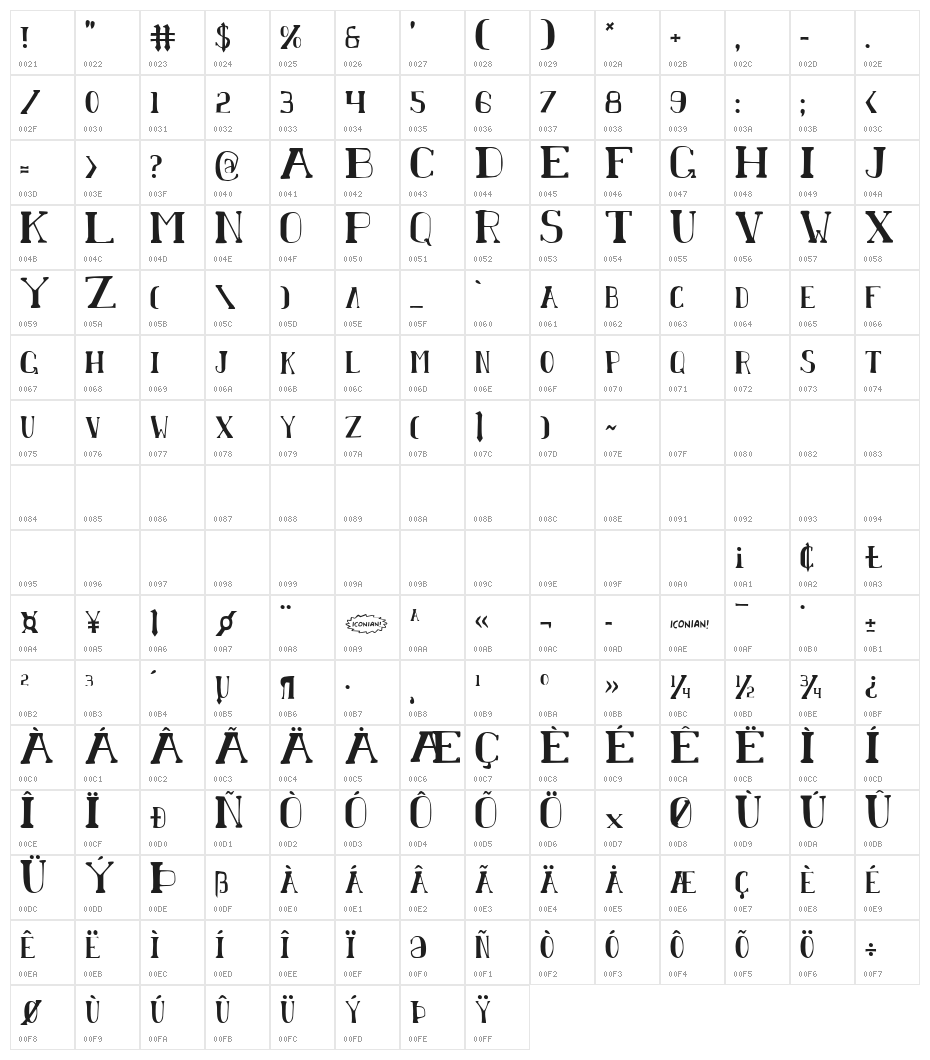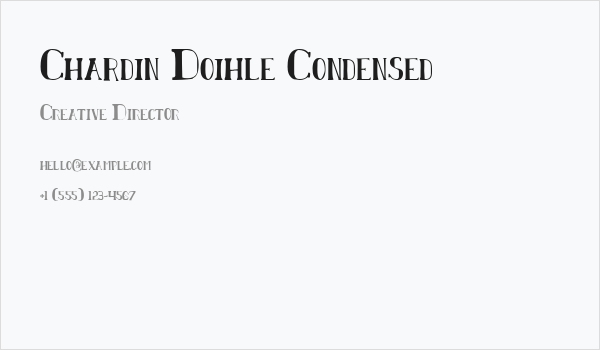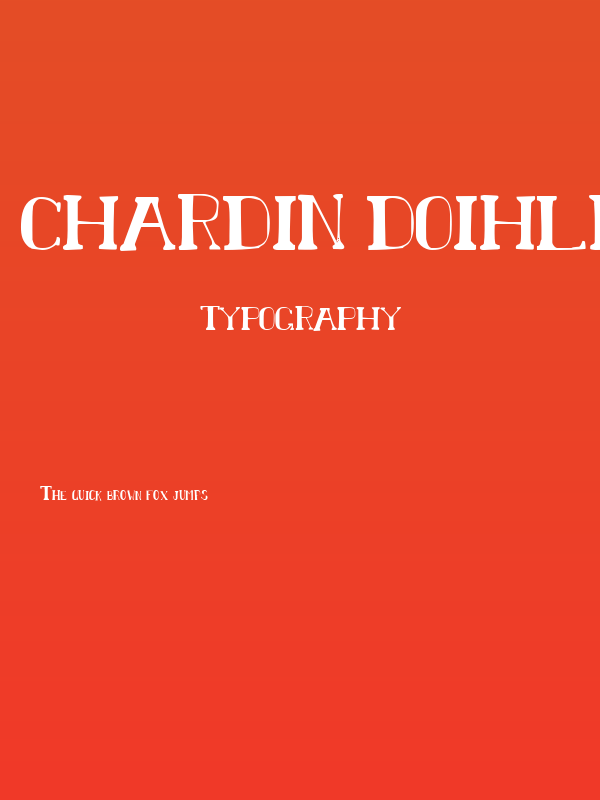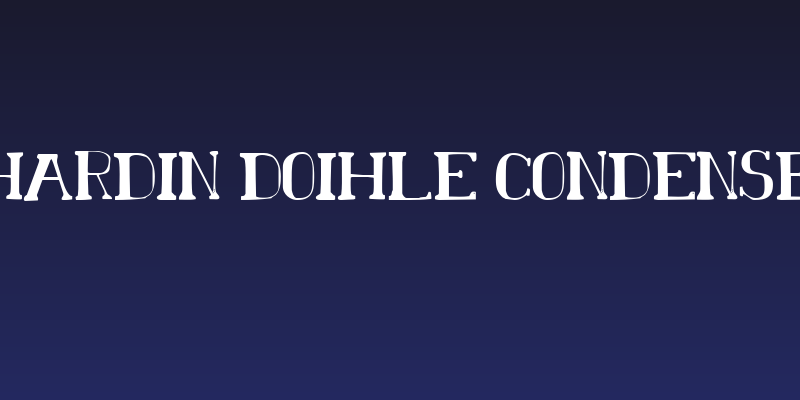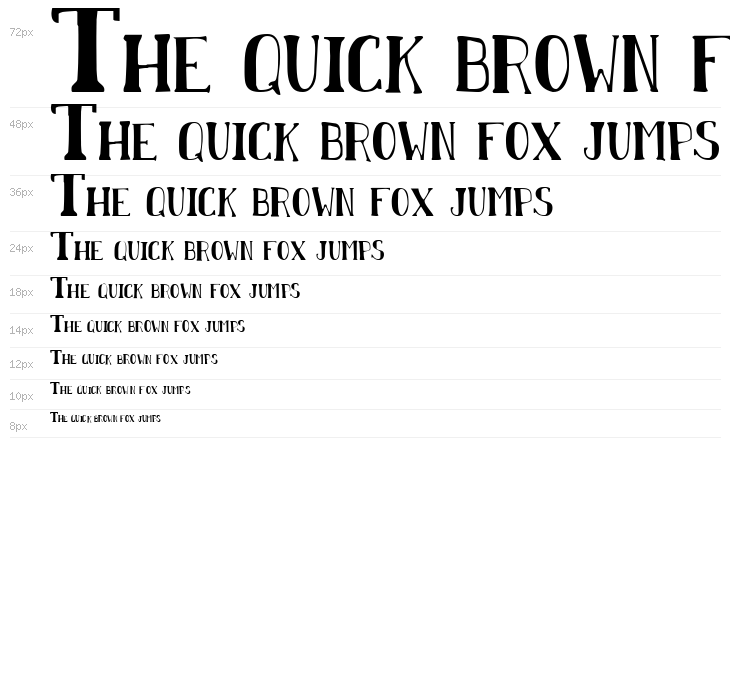
Chardin Doihle Condensed Font
Chardin Doihle Condensed Description
This font features a unique blend of vintage and modern aesthetics, characterized by its bold and condensed letterforms. The uppercase letters exhibit a strong presence with high contrast between thick and thin strokes, giving it a dramatic and eye-catching appearance. The lowercase letters maintain a consistent style, complementing the uppercase with their own distinct flair. The numerals are crafted with the same attention to detail, ensuring readability while maintaining the overall style. Special characters are thoughtfully designed to match the font's bold and condensed nature, making them suitable for various design applications.
| Overall Style | Vintage, Modern |
| Proposed Projects | Ideal for branding, poster design, headlines, and any project requiring a strong visual impact. |